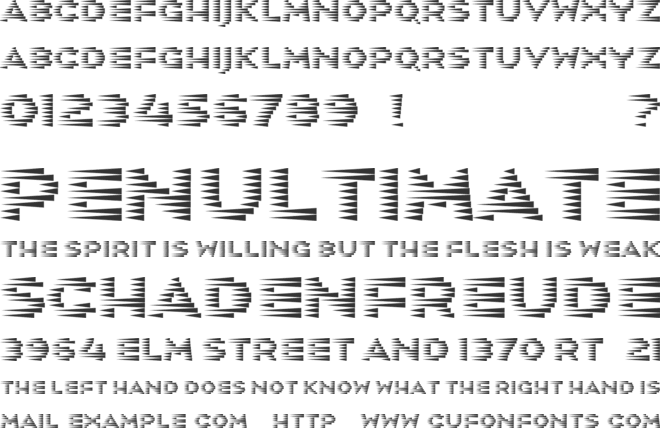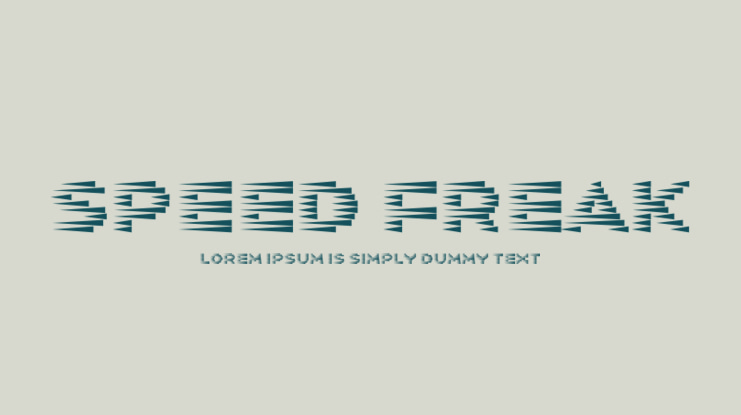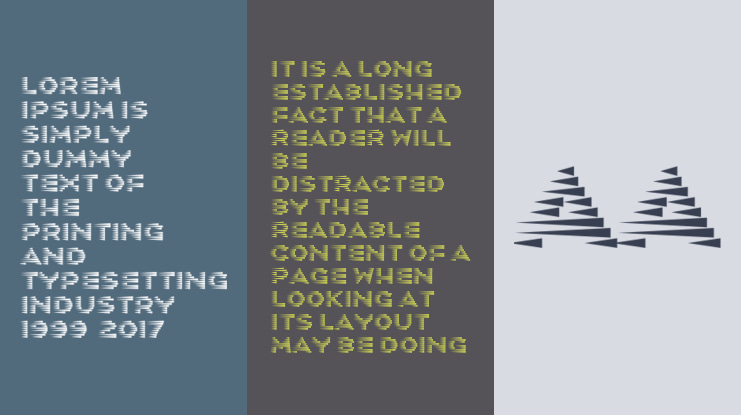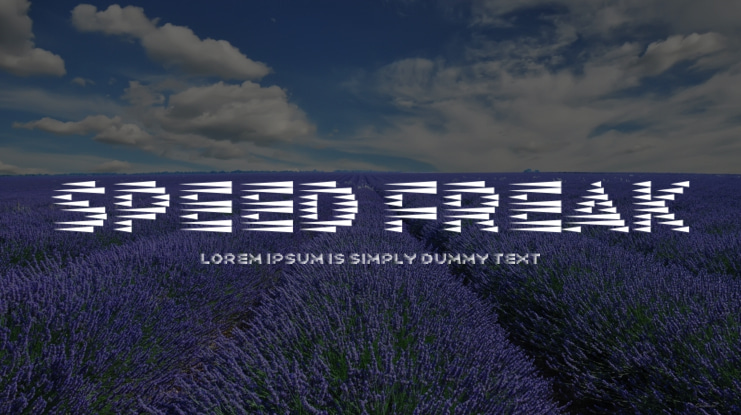
A quick and simple design of a font idea. I based this small display font on my 'Minne Petat' font and finished it in a single evening. I created the mockups a while ago, and I kind of like how it works, especially when you overlap the italic and regular versions.